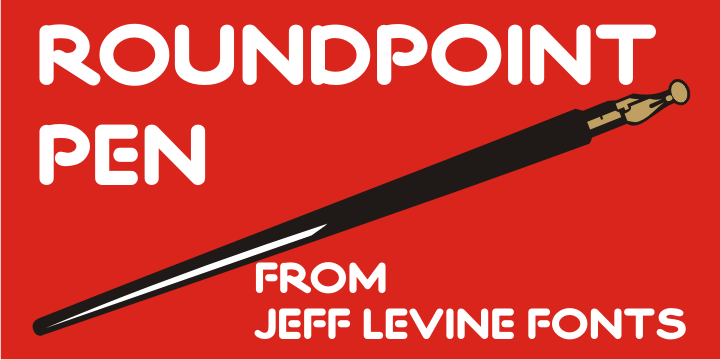
Roundpoint Pen
Roundpoint Pen JNL is based on instructional lettering found in an old Speedball® Pen textbook. The effect of a round nib pen letter evokes the charm of the 1920s or 1930s.
Roundpoint Pen JNL Regular by Jeff Levine Fonts